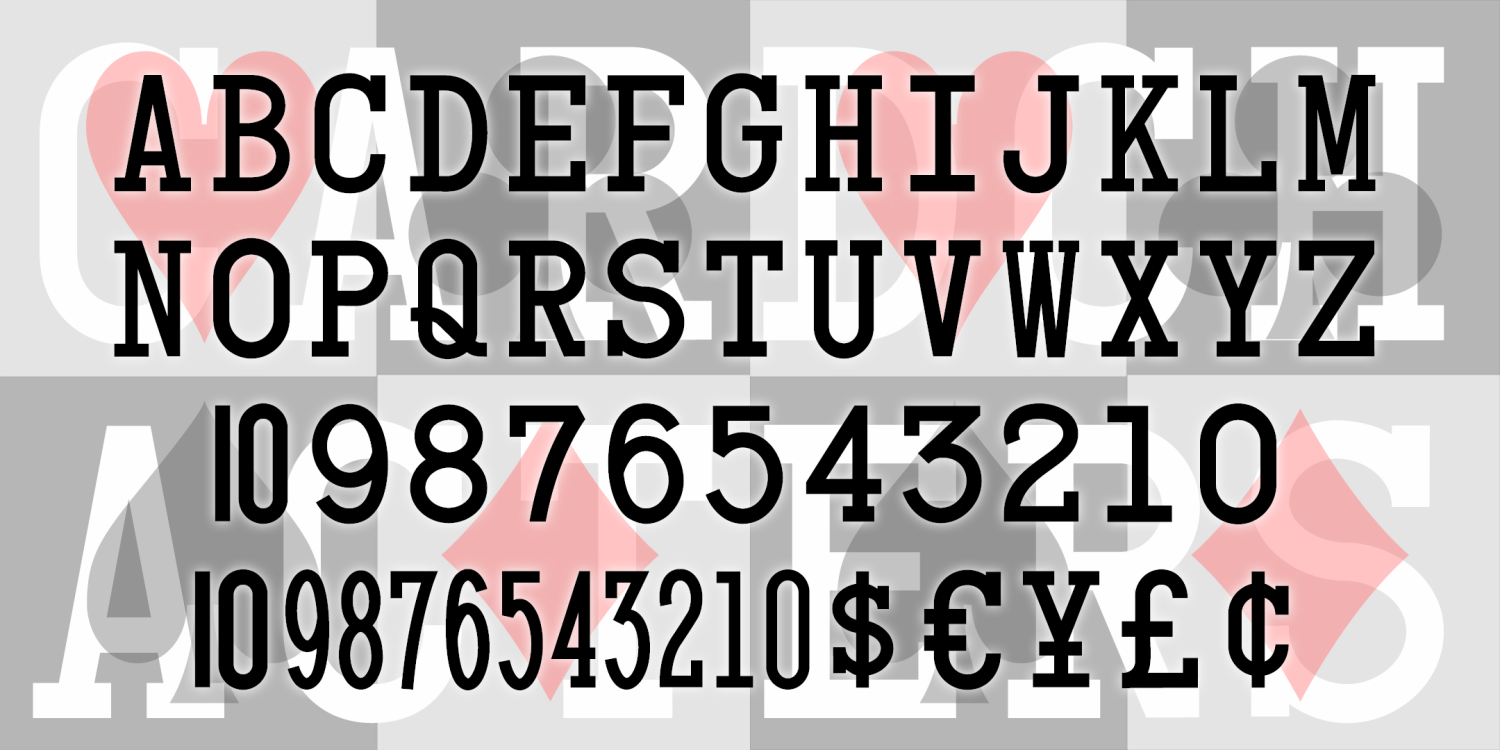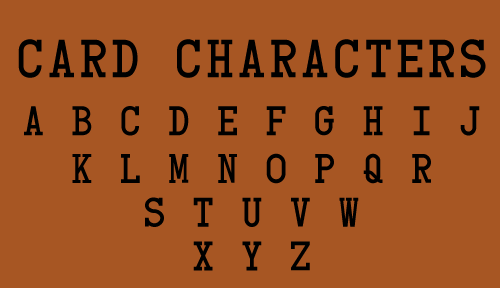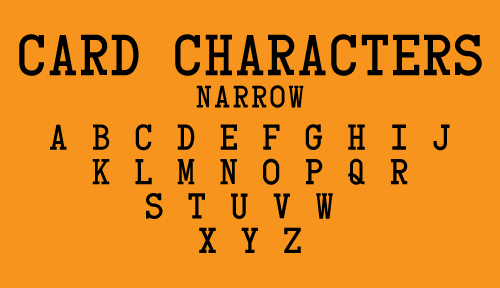
Card Characters
CARD CHARACTERS, as the name suggests, was derived from the characters on standard Bicycle playing cards. Starting with the K, Q, J, A and numbers 1-10, I completed the set, maintaining the somewhat clunky monospace slab-serif look of the original.
Includes uppercase, numbers, punctuation, international characters, a 1-stroke 10, and the four card suit symbols. And because Mark Taylor suggested it, there’s a second font with half-width numbers, so you can compose numbers 11 - 99 to match the letters.